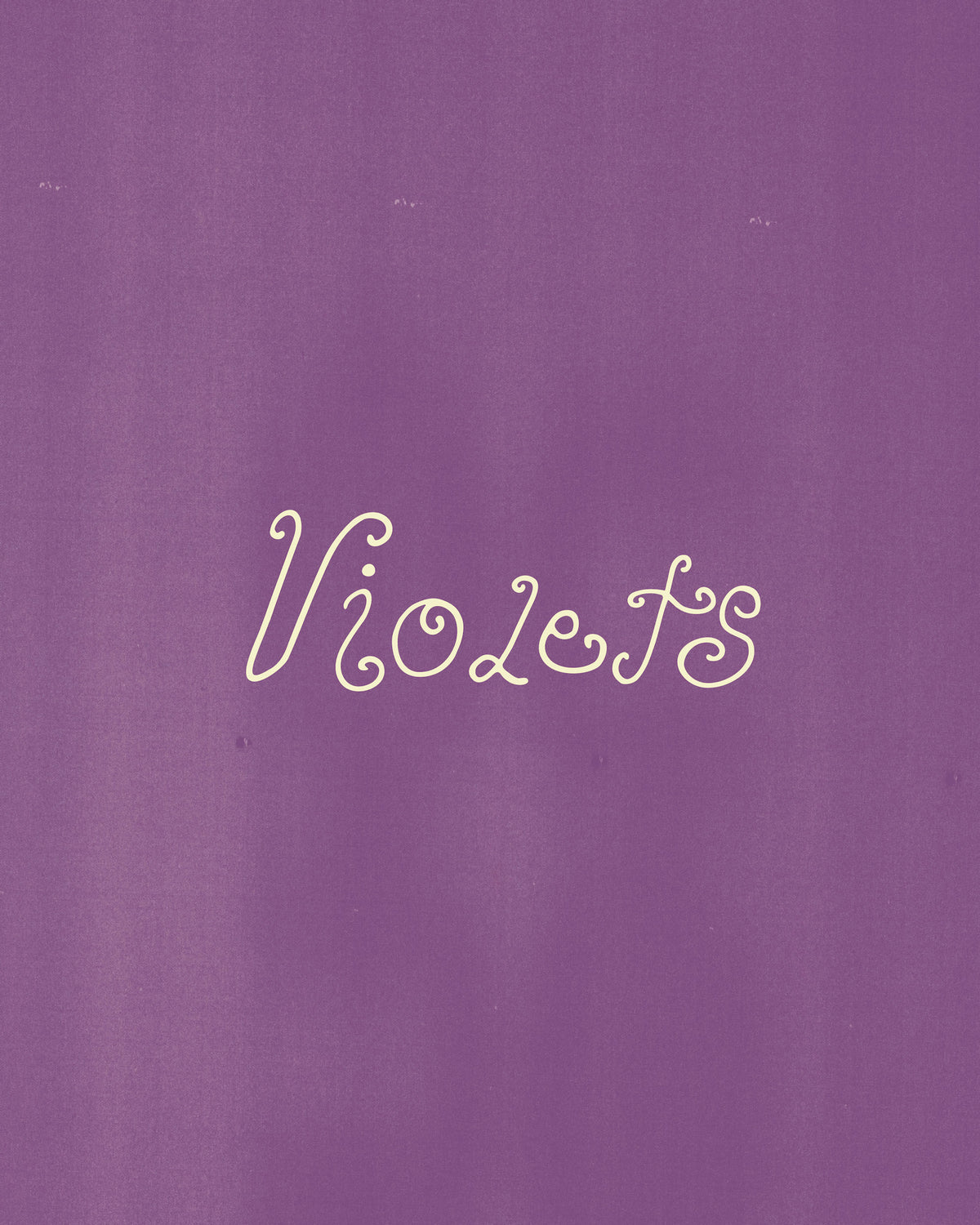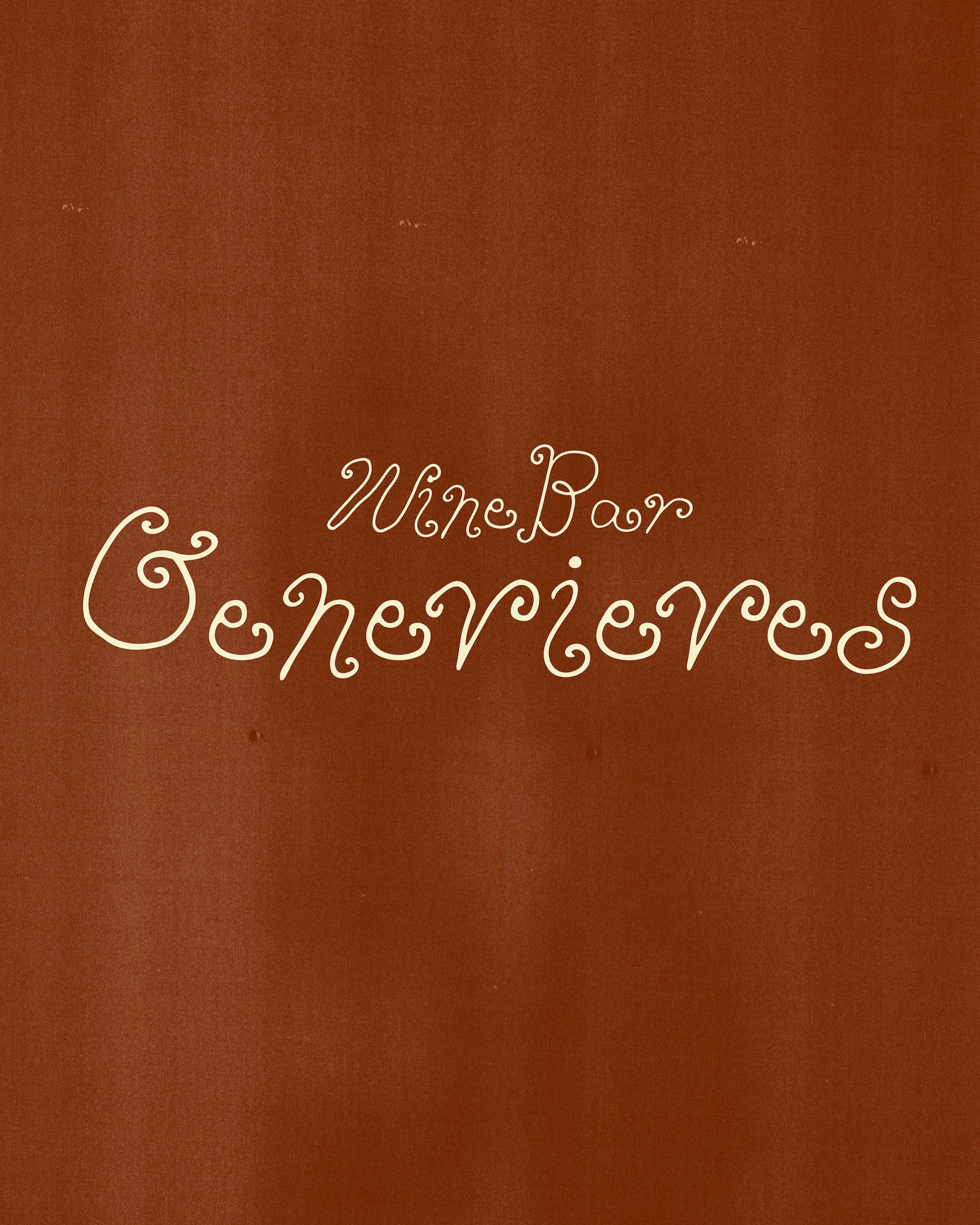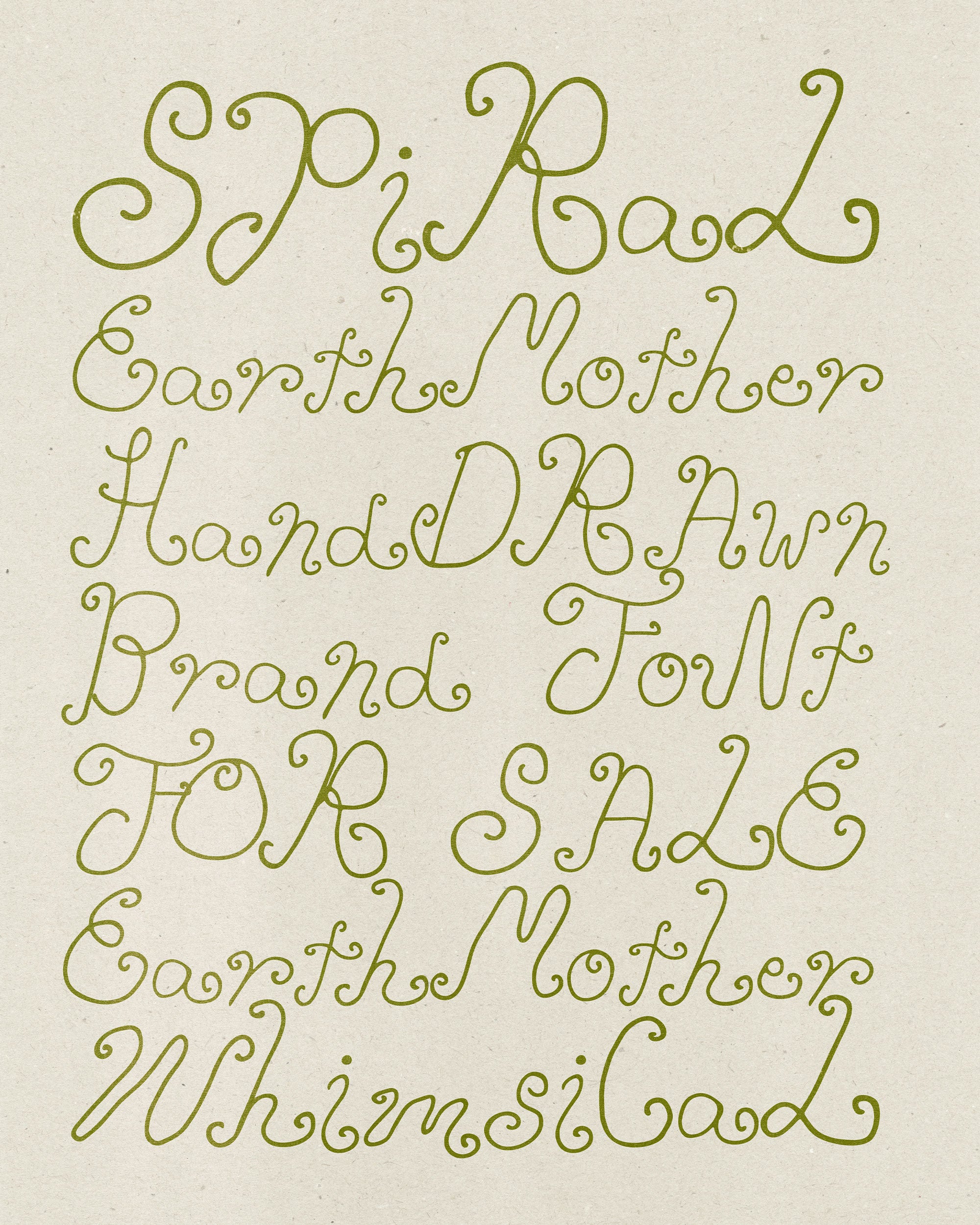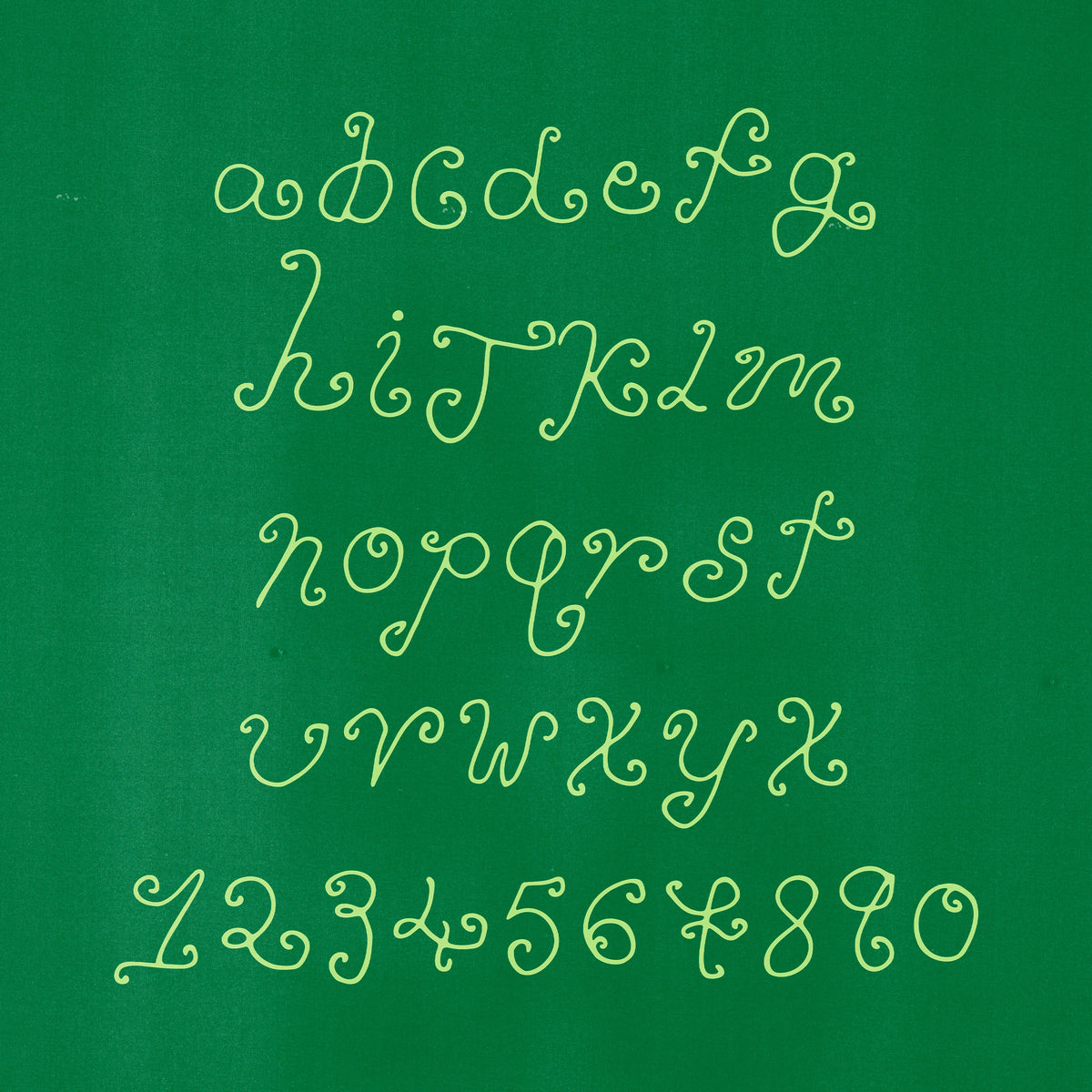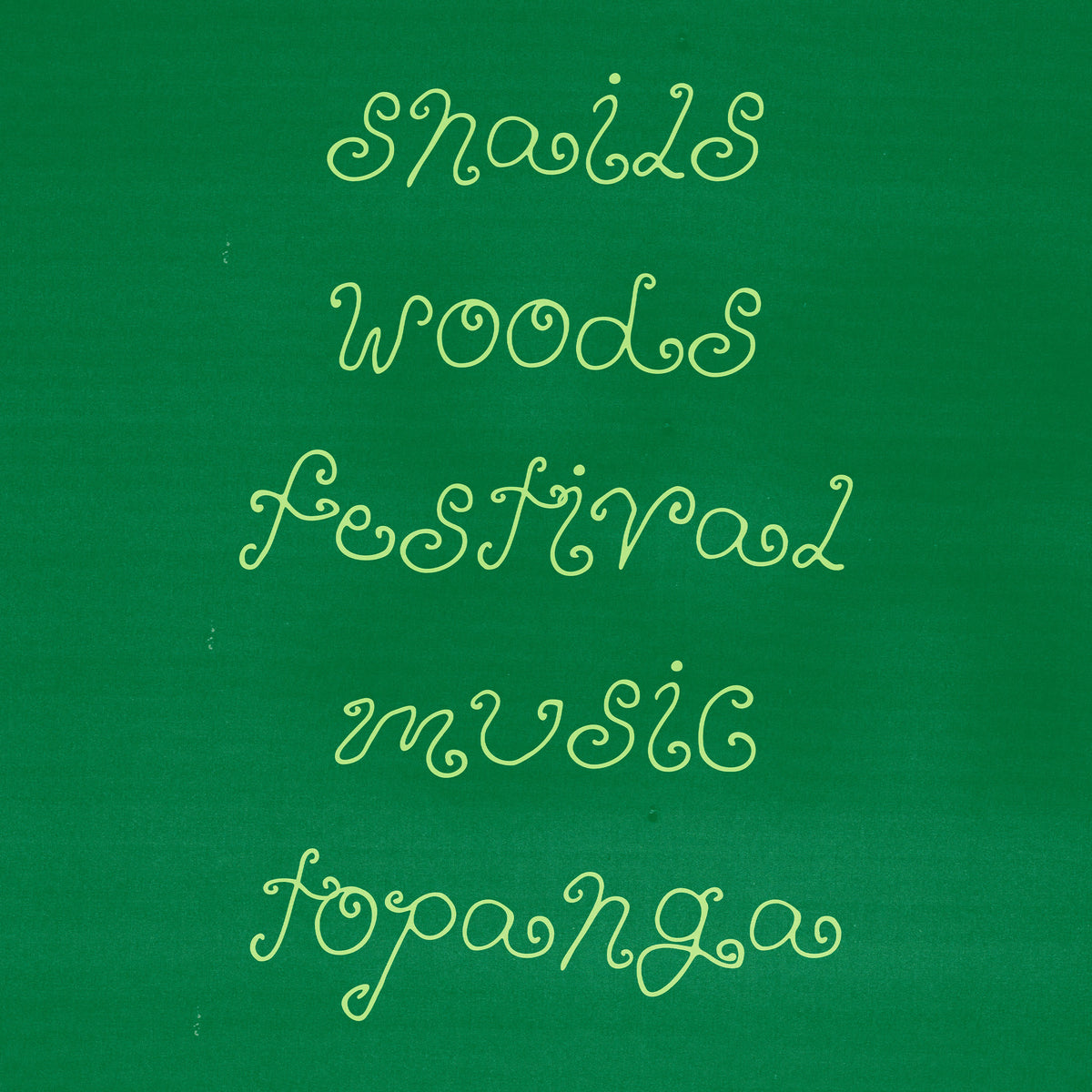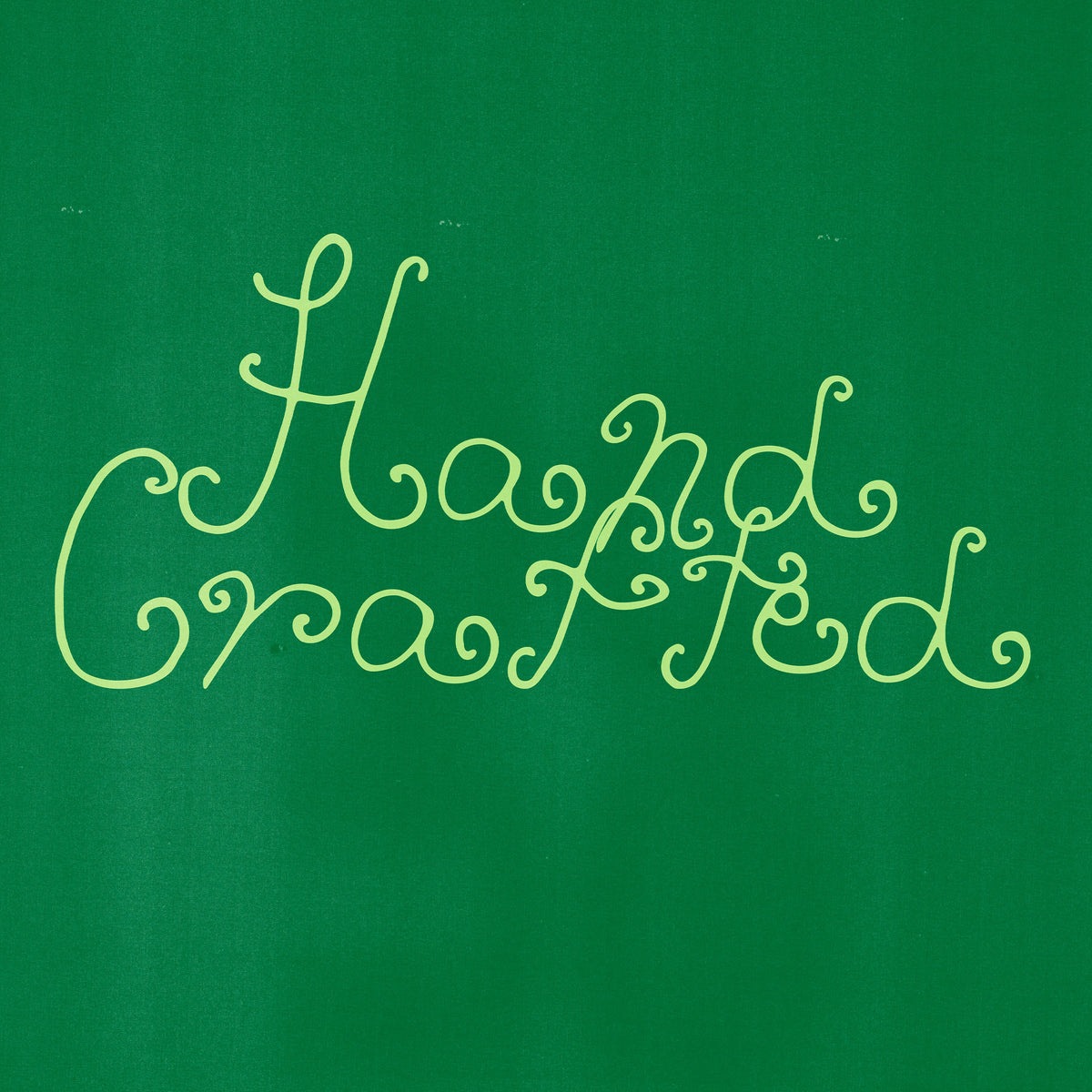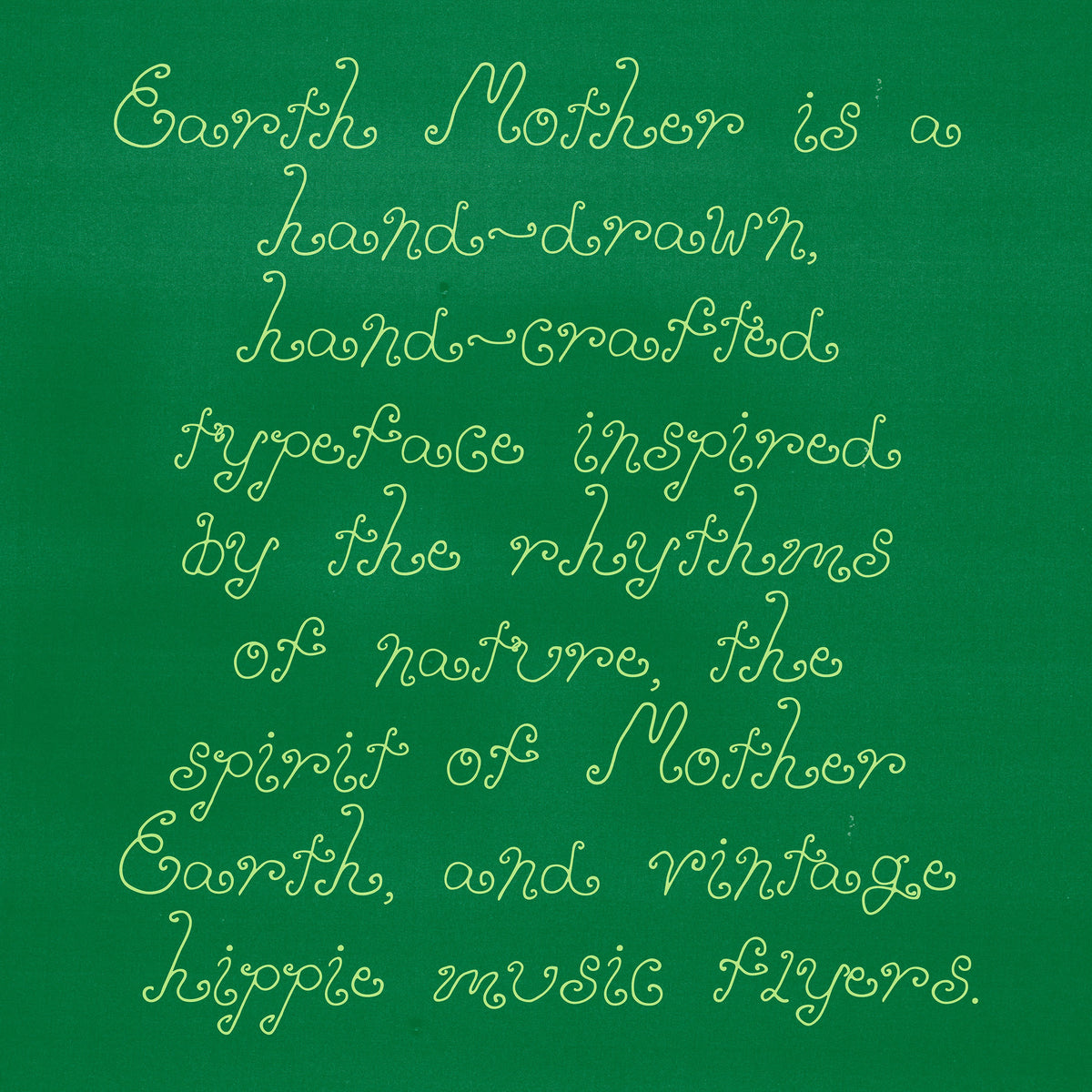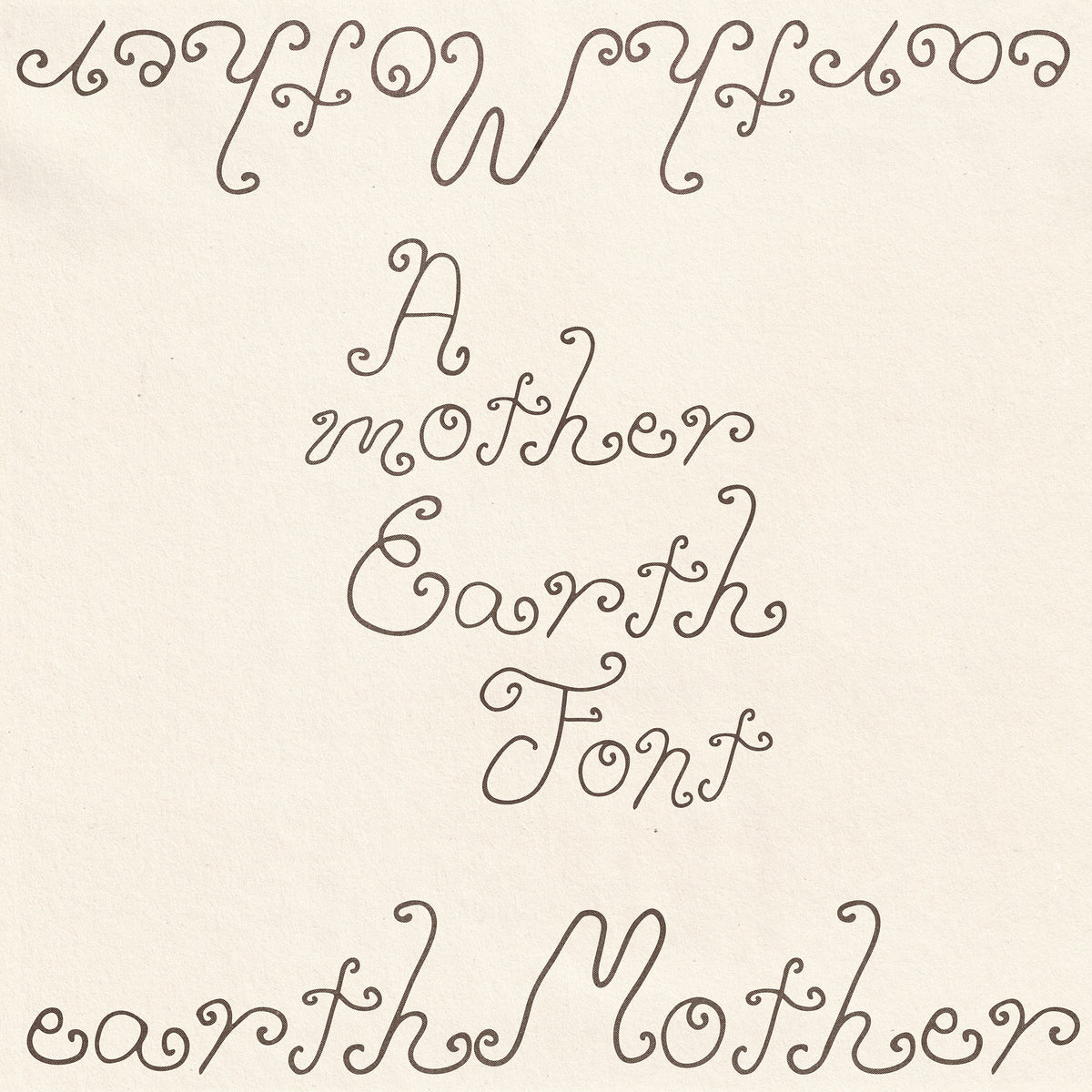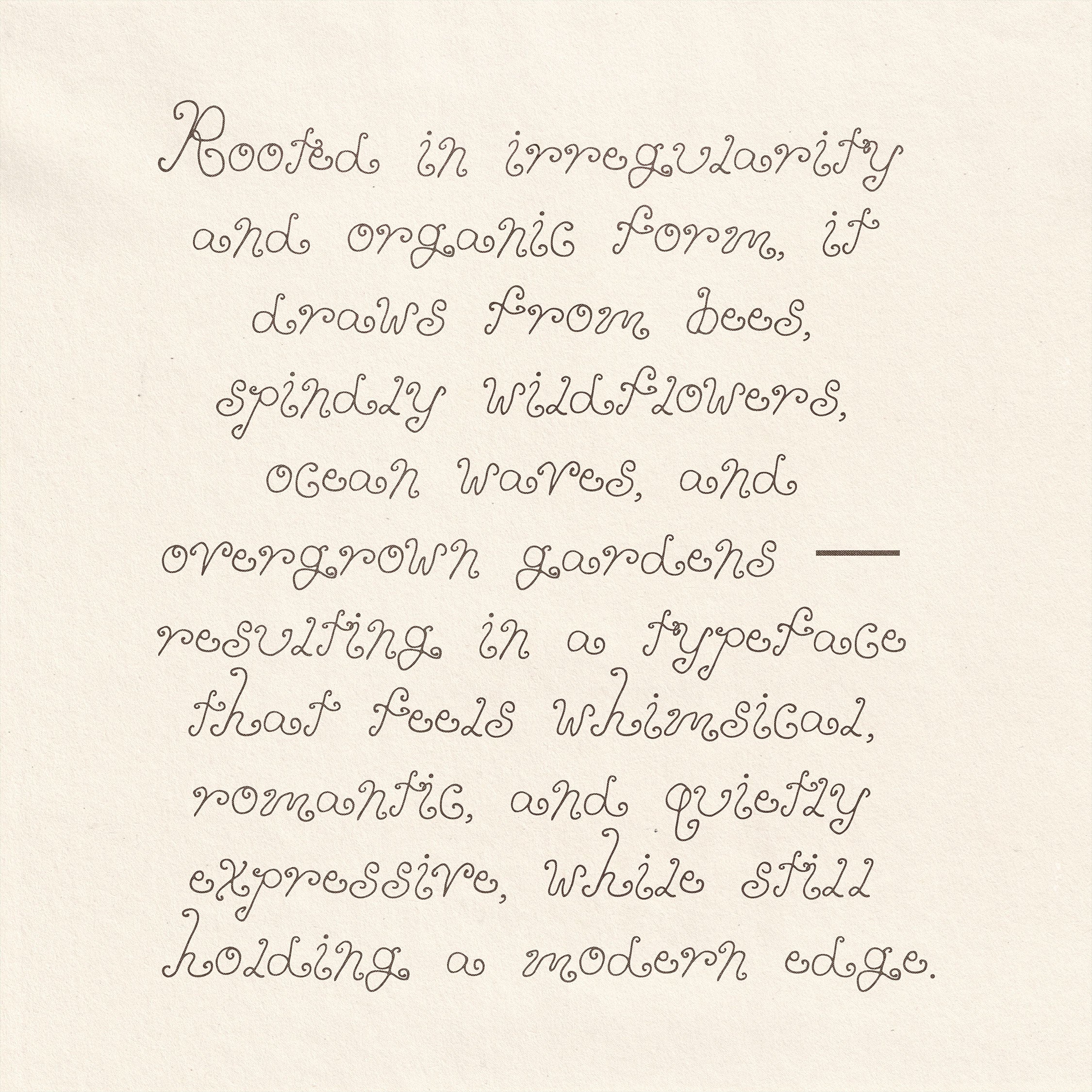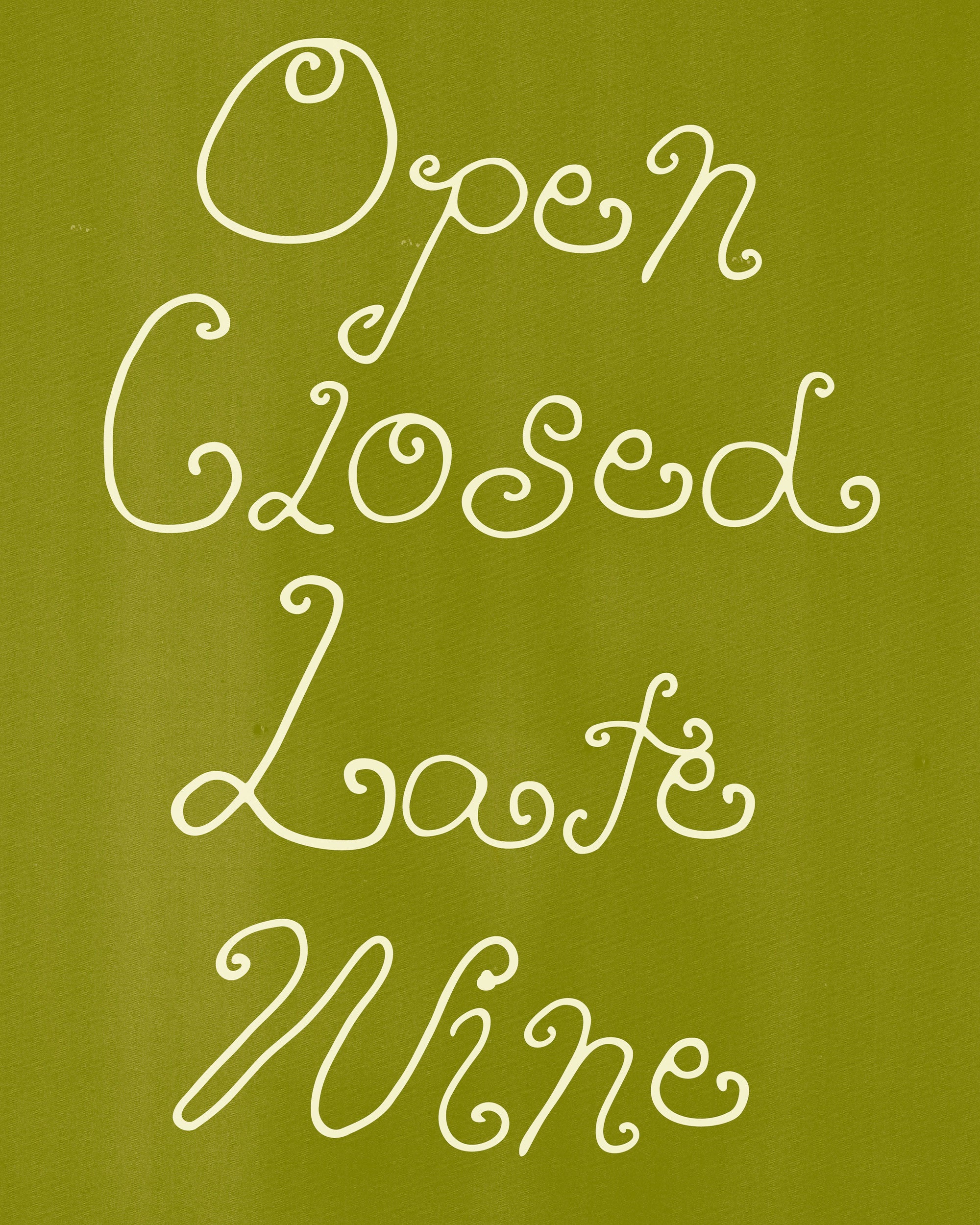
Earth Mother Vintage Hippie Font
Earth Mother is a hand-drawn, organic display font inspired by vintage hippie culture, 60s–70s music posters, and the raw beauty of nature.
Influenced by old concert flyers, hand-painted signage, and free-spirited typography, this font embraces irregularity, movement, and imperfect line work. Think bees drifting through wildflower fields, ocean waves rolling in, and overgrown gardens — all translated into expressive, flowing letterforms.
Whimsical yet grounded, romantic yet bold — Earth Mother brings a soulful, handmade energy to your designs.